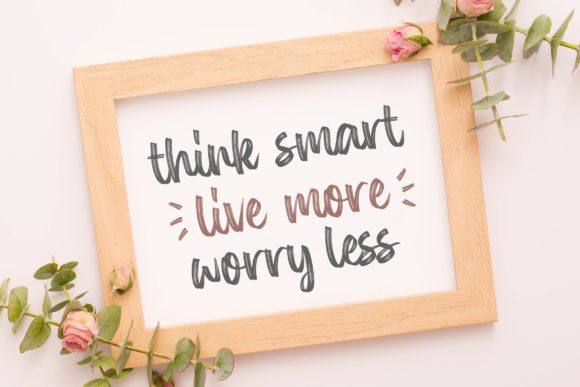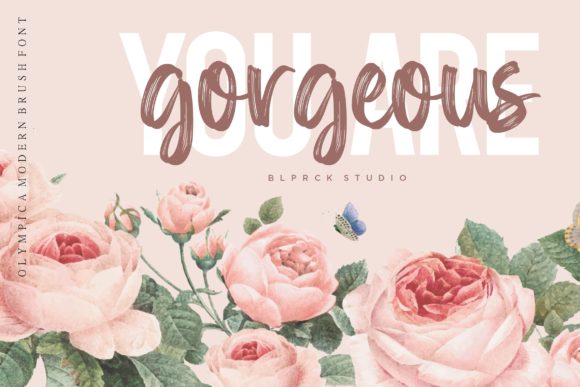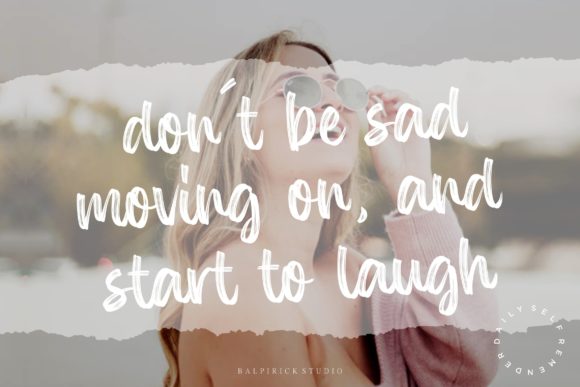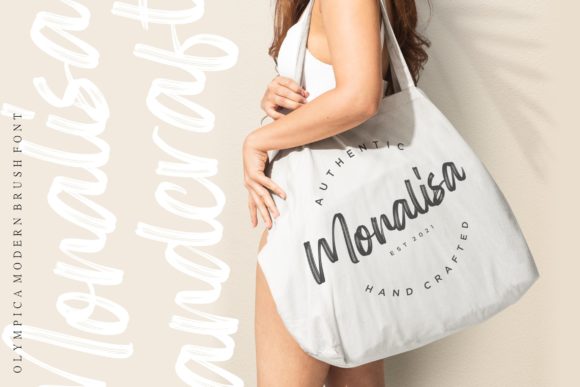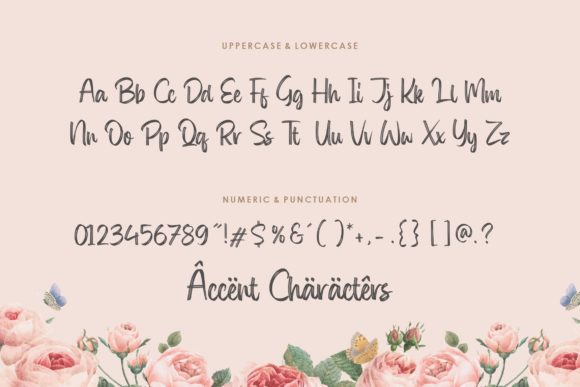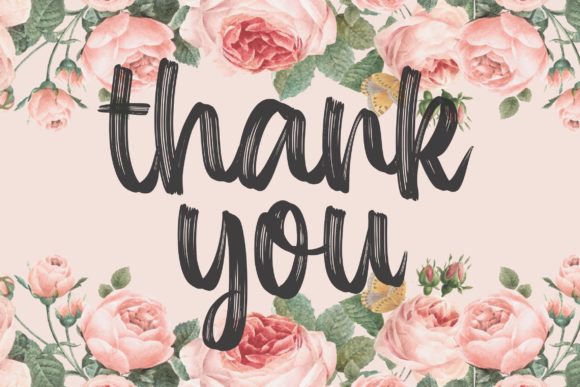
Introduction to Olympica Font
Olympica is a cursive and beautiful brushed script font.
It is defined by smooth curves and is perfect for fashion branding or editorial designs Add it confidently to your projects, and you will love the results.